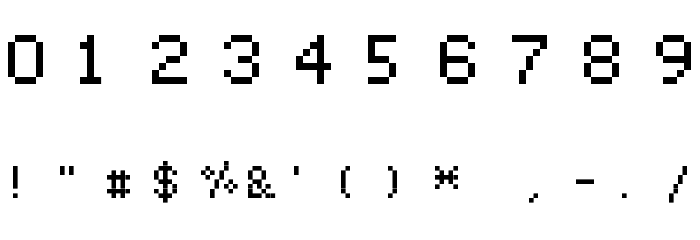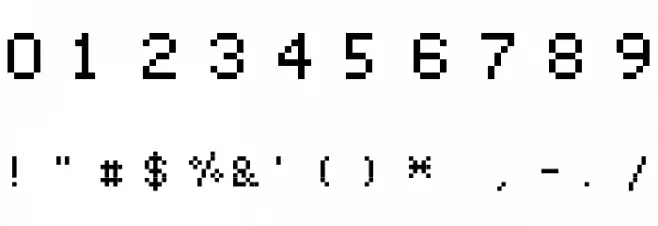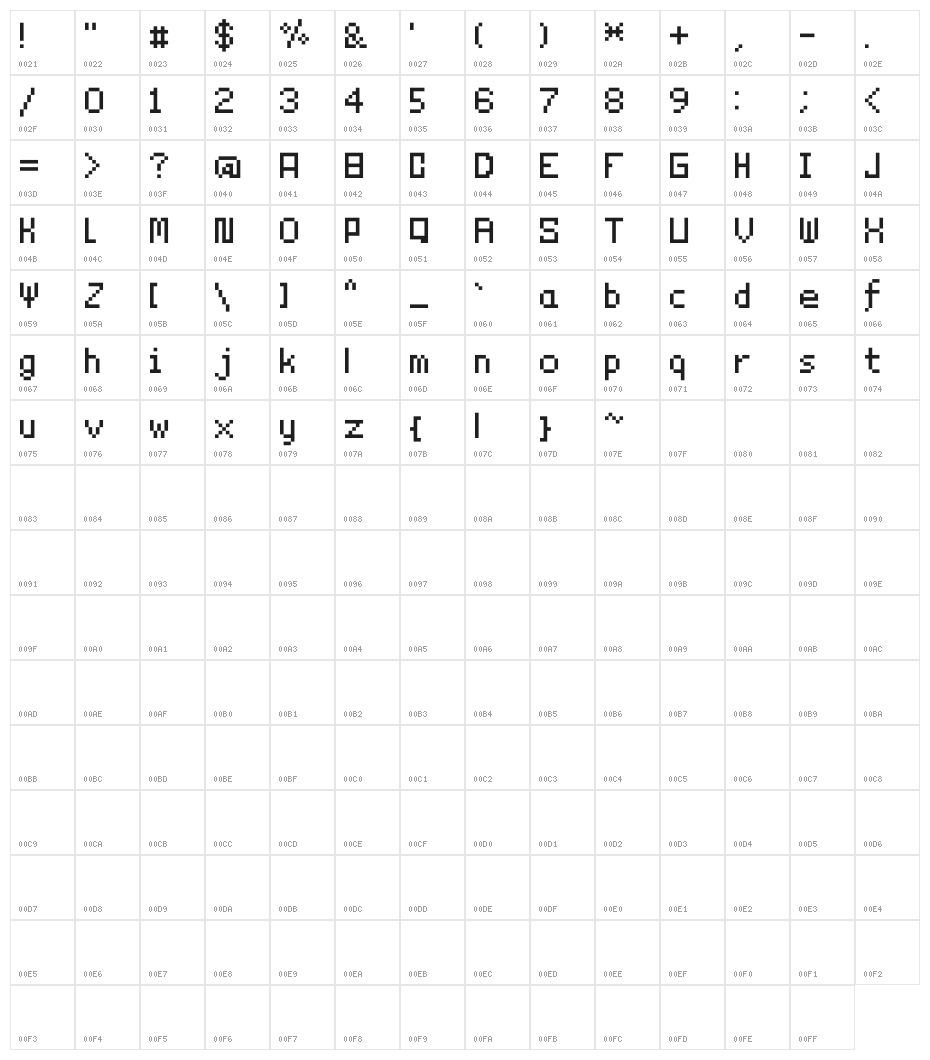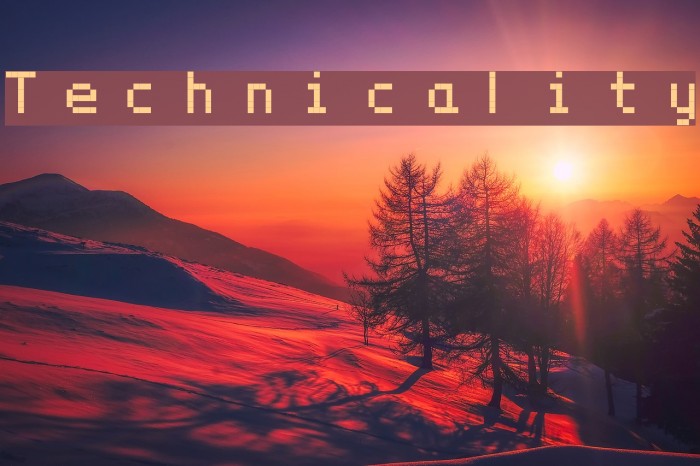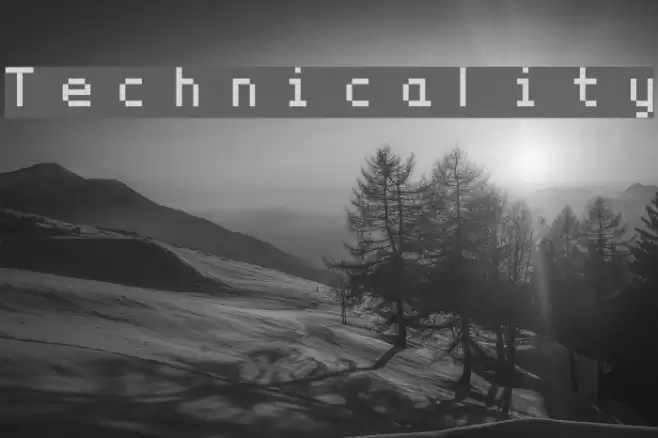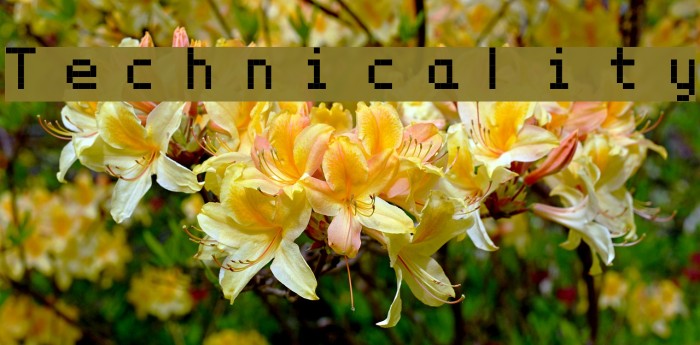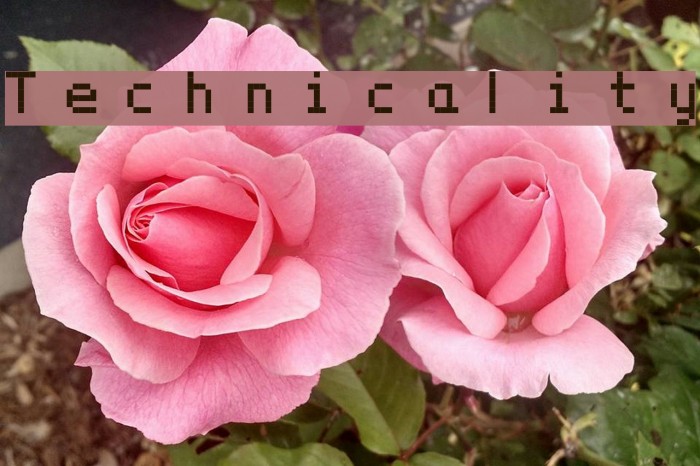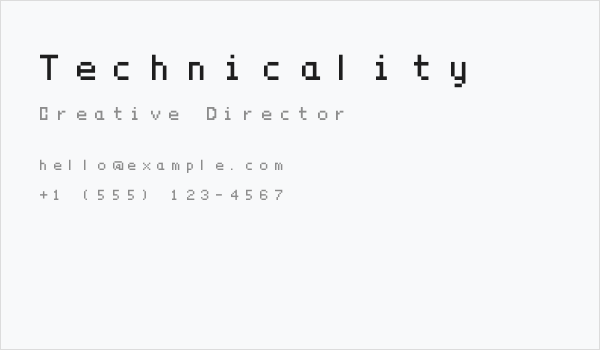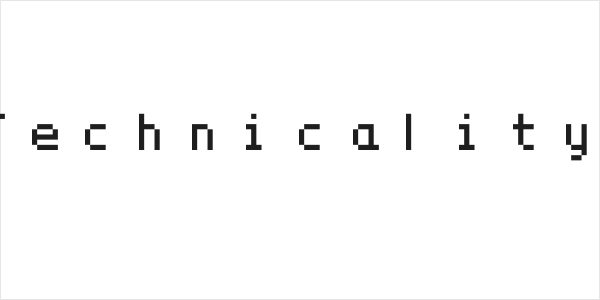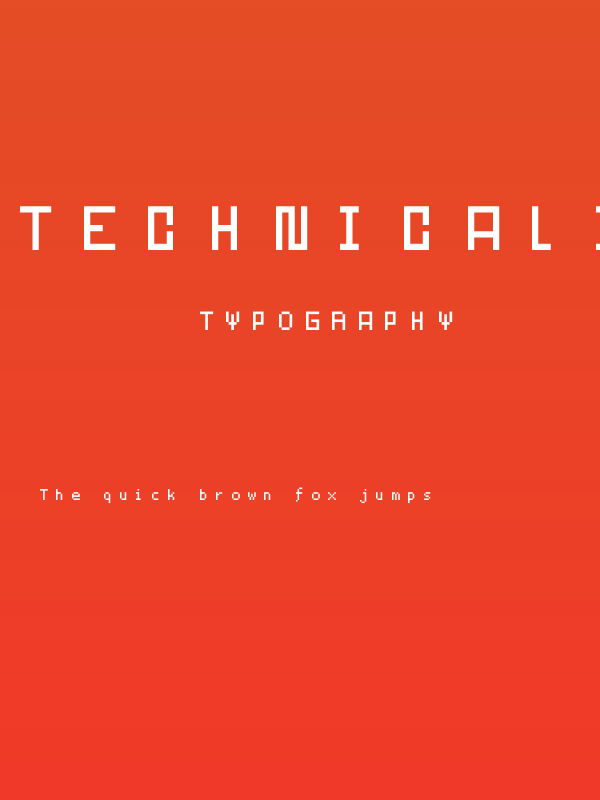
Technicality Font
Technicality Description
This font features a pixelated, grid-like design reminiscent of early digital displays and retro video games. Each character is constructed with a uniform, blocky structure, giving it a distinctly technical and mechanical appearance. The uppercase and lowercase letters maintain a consistent height, contributing to a monospaced feel, although the font is not strictly monospaced. The numerals and special characters follow the same pixelated style, ensuring visual coherence across all glyphs. This font's unique aesthetic is ideal for projects that aim to evoke a sense of nostalgia or a digital, futuristic theme.
| Use Case | Logos, Posters, Digital Art |
| Proposed Projects | Ideal for retro video game graphics, digital art projects, tech-themed posters, and websites seeking a nostalgic or futuristic look. |